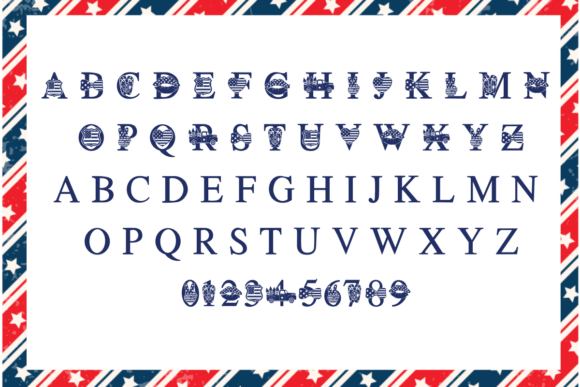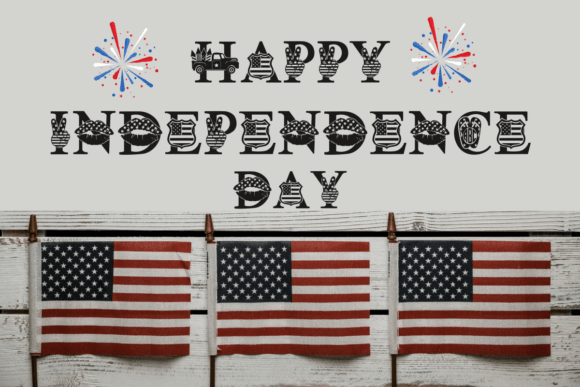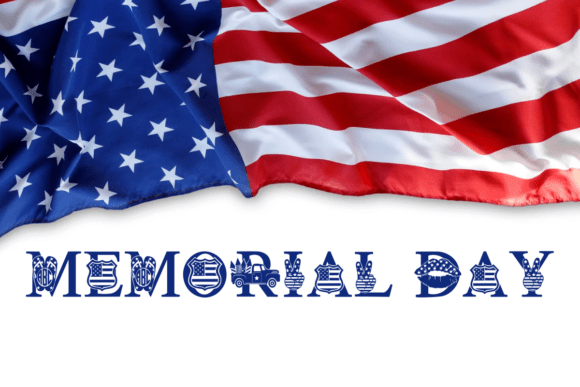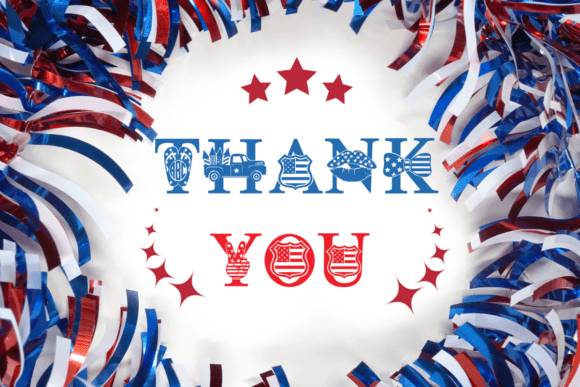
The Star-Spangled Font: A Comprehensive Guide to American Flag Font
I’ll never forget the time I was working on a Fourth of July project, tasked with creating a festive banner for a client’s summer sale. As I scrolled through font after font, nothing seemed quite right – until I stumbled upon the American Flag font. Its bold, decorative letters instantly captured the spirit of the holiday, and I knew I’d found the perfect fit. In this article, we’ll dive into the world of American Flag font, exploring its features, uses, and some helpful tips for getting the most out of this versatile typeface.
An Honest Review of American Flag Font
So, what makes American Flag font so special? Let’s take a closer look.
- ✨ Decorative and eye-catching: American Flag font is perfect for making a statement with your designs.
- ✅ Versatile: From greeting cards to social media posts, this font can be used for a wide range of projects.
- 🎉 Festive and fun: The font’s patriotic theme makes it ideal for Fourth of July, Memorial Day, or other summer celebrations.
While American Flag font is a great choice for many projects, it’s not without its limitations. Here are a few things to keep in mind:
- 🤔 Legibility: At smaller font sizes, the decorative elements can make the text harder to read.
- ⚠️ Overuse: Using American Flag font for body text or lengthy passages can be overwhelming.
The Designer Inspiration Behind American Flag Font
While the true story behind American Flag font may be lost to history, it’s easy to imagine a designer inspired by the stars and stripes of the American flag. Perhaps they wanted to create a font that captured the spirit of summer celebrations and patriotic pride. Whatever the inspiration, American Flag font is a unique and eye-catching typeface that’s sure to add a touch of festivity to your designs.
| Font Name | American Flag Font |
| Author | Heartcraft Atelier |
| What is American Flag font best used for? | American Flag font is perfect for decorative designs, such as greeting cards, banners, and social media posts. |
| Is American Flag font hard to read? | At smaller font sizes, the decorative elements can make the text harder to read. It’s best used for headlines or short passages. |